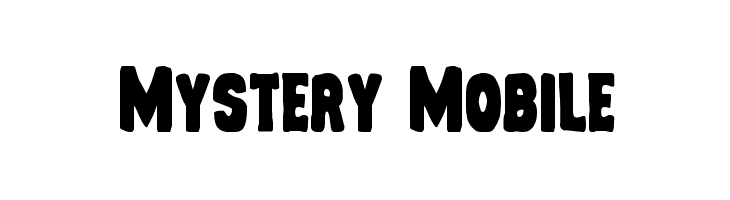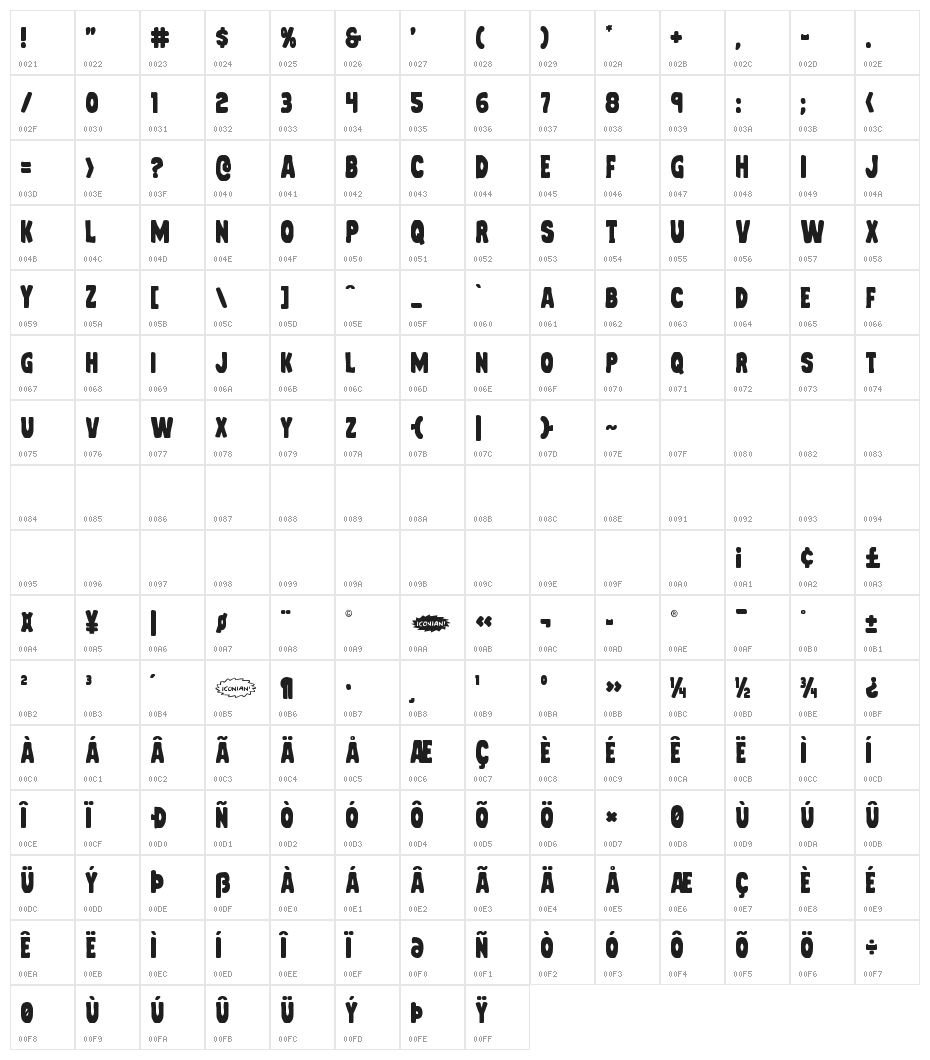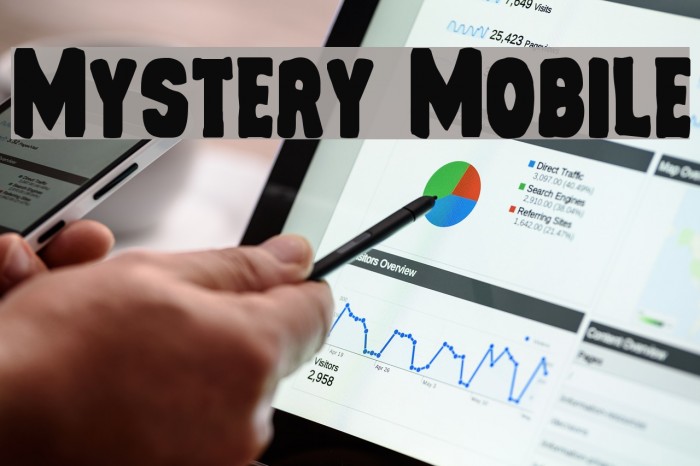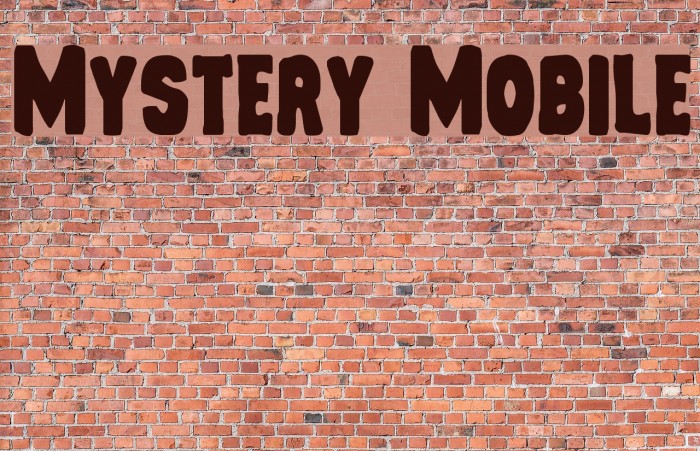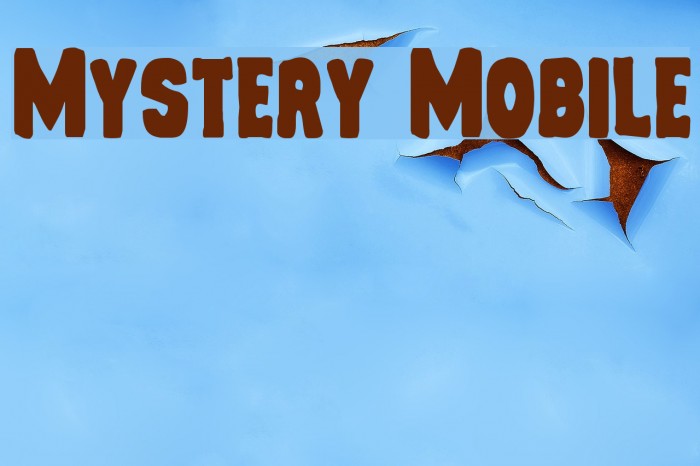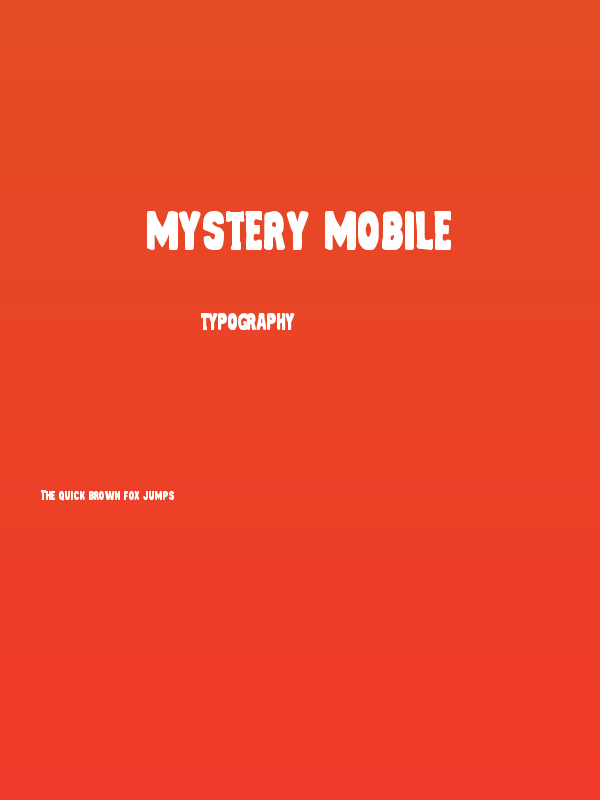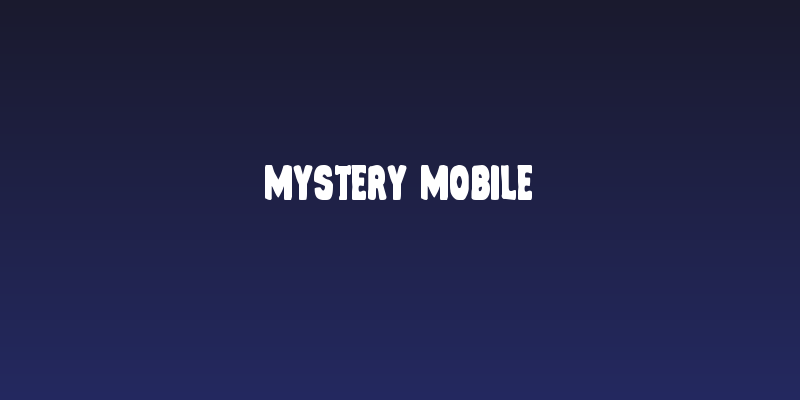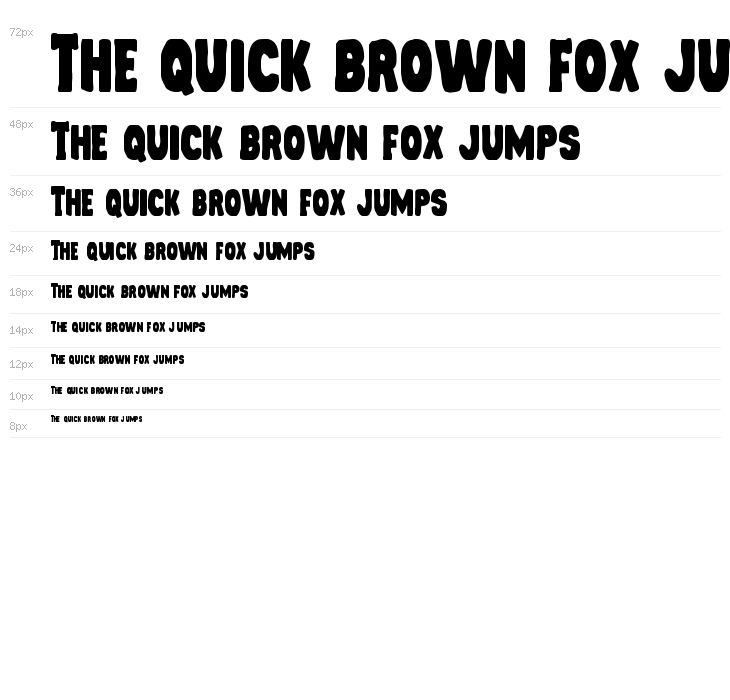
Mystery Mobile Font
Mystery Mobile Description
This font features bold, rounded characters with a playful and dynamic appearance. The letters are thick and slightly irregular, giving them a hand-drawn feel. The overall style is casual and friendly, making it suitable for informal and creative projects. The numbers and special characters maintain the same bold and rounded characteristics, ensuring consistency across all glyphs. This font's unique style makes it stand out, adding a touch of personality to any design.
| Use Case | Logos, Posters, Headlines |
| Proposed Projects | Ideal for children's books, posters, logos, and playful branding materials. |